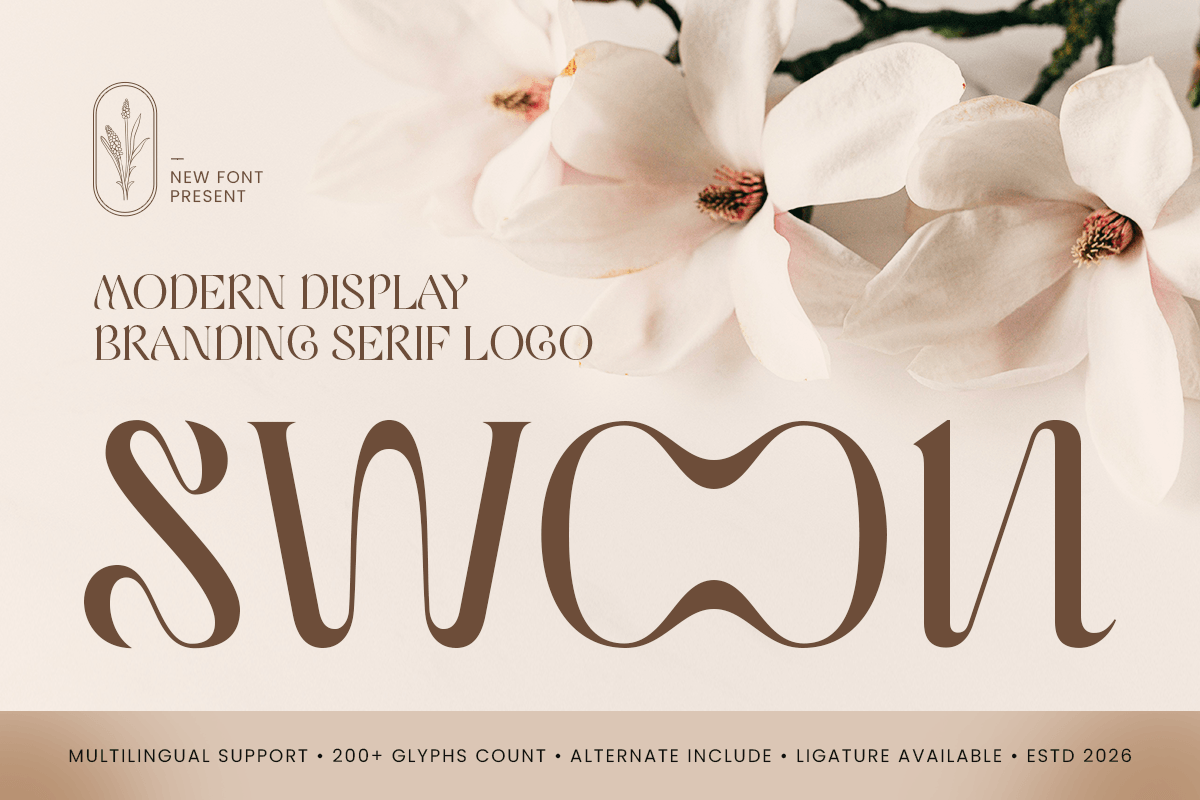
Swoon
-Modern Display Branding Serif Font
Swoon - Modern Display Branding Serif Font
SWOON is a modern display branding serif font designed to bring elegance, confidence, and refined visual character to your creative projects. With stylish serif details, expressive proportions, and a polished display style, this typeface is perfect for branding, logo design, editorial layouts, packaging, and high-end visual identities.
Created for designers who want typography with both personality and sophistication, SWOON blends modern aesthetics with timeless serif charm. Its distinctive letterforms make it ideal for fashion brands, beauty products, lifestyle labels, boutique packaging, magazine titles, and premium marketing visuals.
Whether used as a bold headline, elegant logo mark, or stylish editorial title, SWOON delivers strong readability and memorable visual appeal across both print and digital media.
SWOON – Modern Display Branding Serif Font Features
• Modern display serif design with elegant branding appeal
• Perfect for logos, editorials, packaging, and premium visual identity
• Stylish letterforms with refined proportions and strong character
• Ideal for fashion, beauty, lifestyle, boutique, and creative industries
• OpenType features for advanced typographic styling
Create stylish sophistication with SWOON – the ultimate modern display serif font for elegant branding, premium packaging, and editorial design. ✨👑